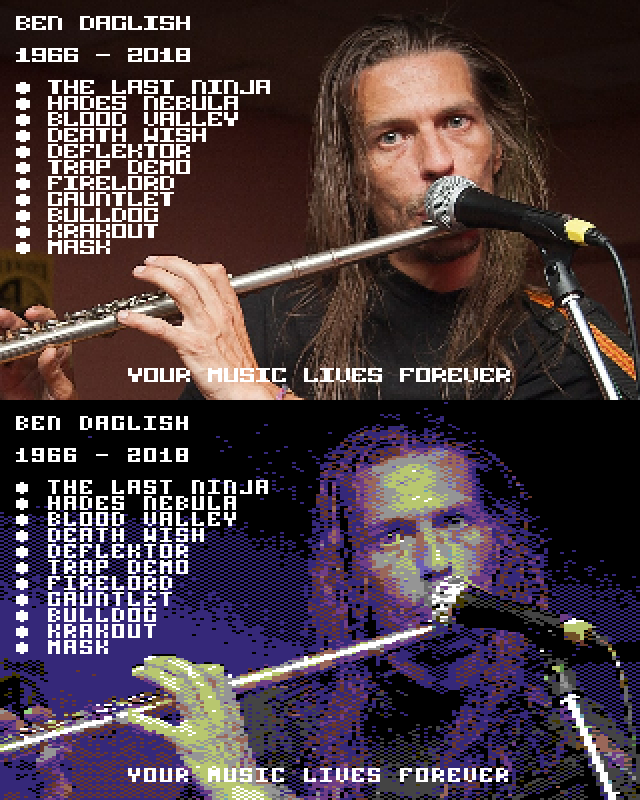
• A 8x8 monospaced Pixel Font with double-wide horizontal Pixels to fit in a C64 Koala Painter Image with only 160x200 Resolution in Multicolor Mode. You can paint a 320x200 image, draw the text on it and convert it to C64 Koala Format using Project One without distortions (hint: use font size 8px and Height: 85% in Photoshop).
It was very hard to make the chars with so few pixels that some characters didn't make sense to create. The font fits perfectly in the 8x8 color matrix of the C64, too.
This is how it looks like, the original and the converted image. Watch the text.
Some of the glyphs are not the same width as the others (Semicolon,Hash,VerticalLine,etc...)